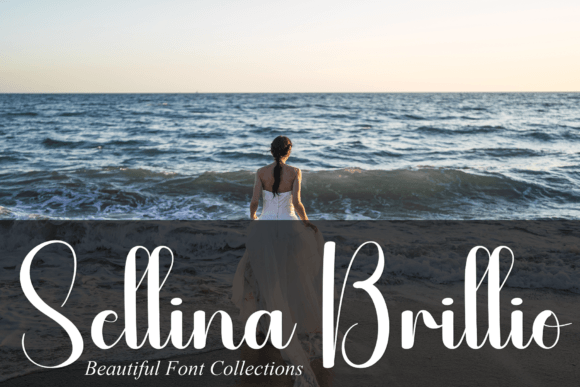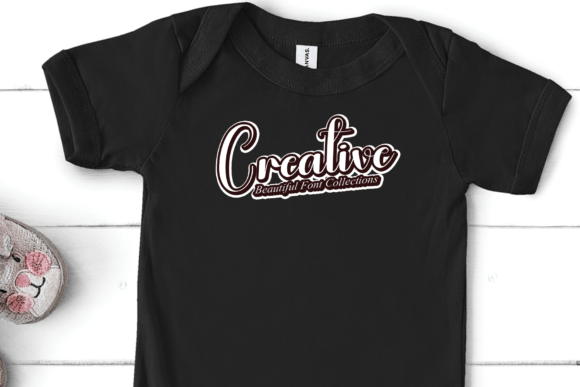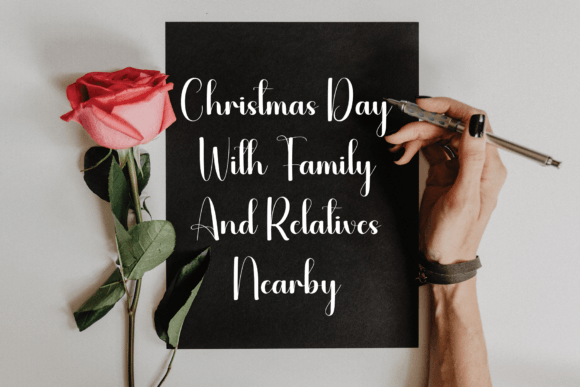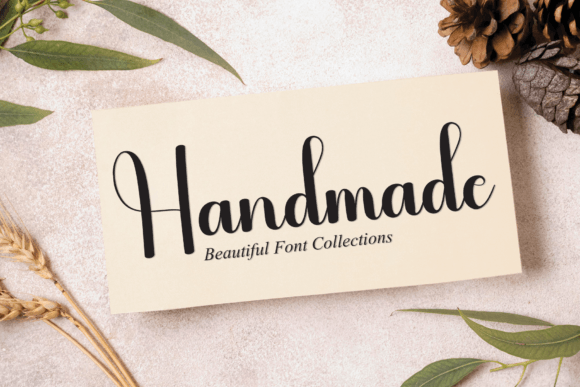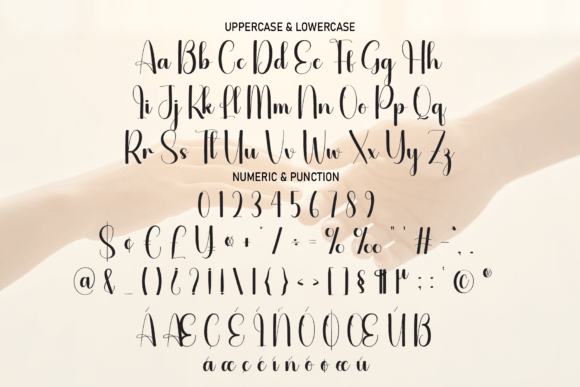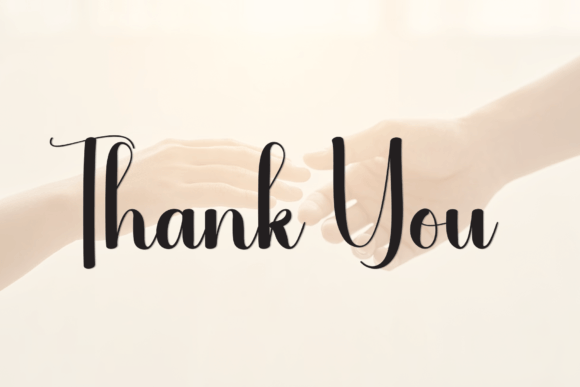
The Designer’s Delight: A Deep Dive into the Generous Font
I’ll never forget the struggle I faced while working on a client’s wedding invitation project. The design required a font that exuded elegance, sophistication, and a touch of whimsy. After scouring through countless font libraries, I stumbled upon the Generous font. It was love at first sight! The flowing handwritten script, the elegant touch, and the timeless style instantly won my heart. In this article, I’ll share my experience with the Generous font, its features, and how to make the most of it in your designs.
An Honest Review of Generous Font
What I Love About Generous Font
- ✨ Elegant and flowing handwritten script
- ✅ Incredibly distinct and timeless style
- 💫 Perfect for creating spectacular designs, from wedding invitations to branding materials
- 👍 Highly legible, even at smaller font sizes
While the Generous font is a stunning addition to any design project, there are a few things to keep in mind:
- 🤔 Limited use of uppercase letters, which can make it less suitable for headings or titles that require all caps
- ⚠️ Some users may find the font too ornate or decorative for certain design projects
The Story Behind Generous Font
The Generous font was designed by a talented typographer who wanted to create a font that exuded elegance and sophistication. Inspired by classic calligraphy and handwriting, the designer aimed to create a font that would be perfect for a variety of design projects, from wedding invitations to branding materials. With its flowing script and timeless style, the Generous font has become a popular choice among designers and crafters.
Q: What is the Generous font best suited for?
A: The Generous font is perfect for a variety of design projects, including wedding invitations, branding materials, and stationery.